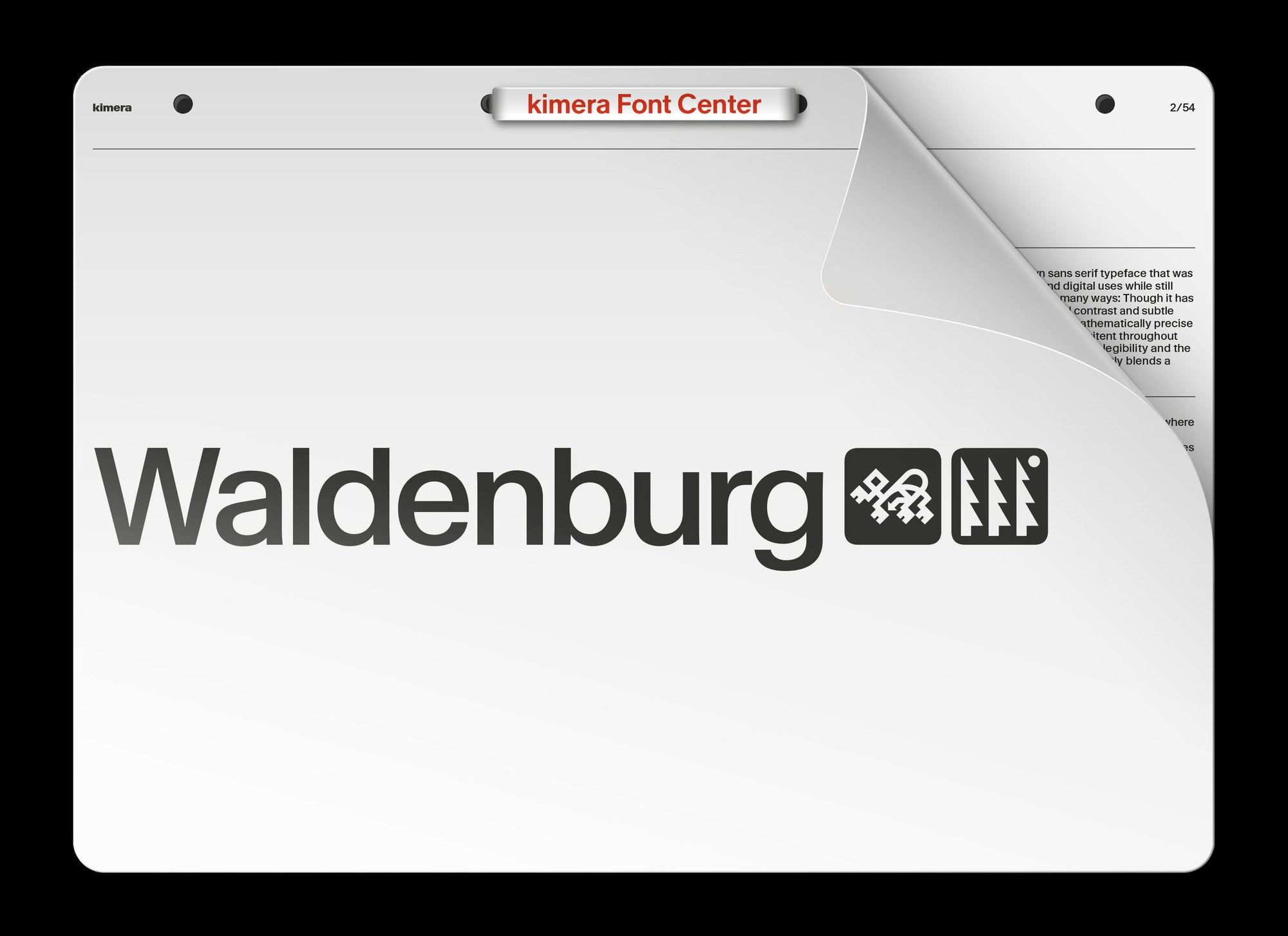
Waldenburg typeface from Munich Kimera foundry earned global attention when chosen as the display type for Oscar-winning Sentimental Value film campaign.
Independent type foundries rarely get their letterforms seen on the walls of cinema lobbies worldwide. When Munich designer Michael Clasen began sketching the first glyphs of the Waldenburg typeface in late 2019, named after his small hilltop hometown in southwest Germany, the project was a quiet, personal act. Five years later, Waldenburg found itself at the center of the marketing campaign for Joachim Trier's Best International Feature Oscar-winner, Sentimental Value, a film about inter-generational family trauma, memory, and the emotional weight of architecture.
The pairing makes complete sense once the design logic is examined. The Waldenburg typeface balances a humanist, organic warmth — drawn from its strong vertical contrast and subtle squarish terminals, with a mathematically precise geometric construction. Michael Clasen describes the conceptual line as blending "the early rationalism of Akzidenz Grotesk with the calligraphic warmth associated with Univers." That duality, structural clarity holding hands with human feeling, maps directly onto the themes of Trier's film.
The Waldenburg Typeface: A Superfamily Built for Print and Screen
The Waldenburg typeface is a substantial piece of work. This superfamily spans 24 cuts across weight and width axes, each maintaining a high x-height that ensures maximum readability in tight line spacing. The Kursiv (italic) cuts were designed by Marcel Saidov and arrived in 2022, completing the family. With 678 glyphs, 70 language support, and five formats including WOFF2 for web use, Waldenburg was built from the start with digital-first versatility — yet it carries the warmth of analogue print work in every curve.
The Sentimental Value poster design used the Waldenburg typeface's closely-spaced, elongated forms to contain and frame the faces of each key character in decreasing rectangular boxes, a claustrophobic, elegant layout that channeled the film's themes visually before a single frame was screened. The sophisticated typographic treatment came directly from Waldenburg's defining characteristic: a super-high x-height that reads with controlled intensity at display scale.
"After spending years developing a typeface, seeing it take on a life outside the studio is always incredibly rewarding, especially when it becomes part of something as visible and culturally present as a film campaign," Clasen told It's Nice That. "It's rare for a typeface of an independent type foundry to become part of something that's so culturally significant."
Kimera Foundry: Research Drives the Design Method
Kimera, the Munich foundry behind the Waldenburg typeface, puts one process at the center of all its work: research. Every project begins with an investigation into how historical type ideas translate into typefaces meeting contemporary technological requirements. The approach has produced a small but considered catalog, from the early-1970s ink-trap-influenced Apparat to the warm modernist Melange Grotesk. Each piece reflects a foundry operating far outside the cycles of trend-chasing.